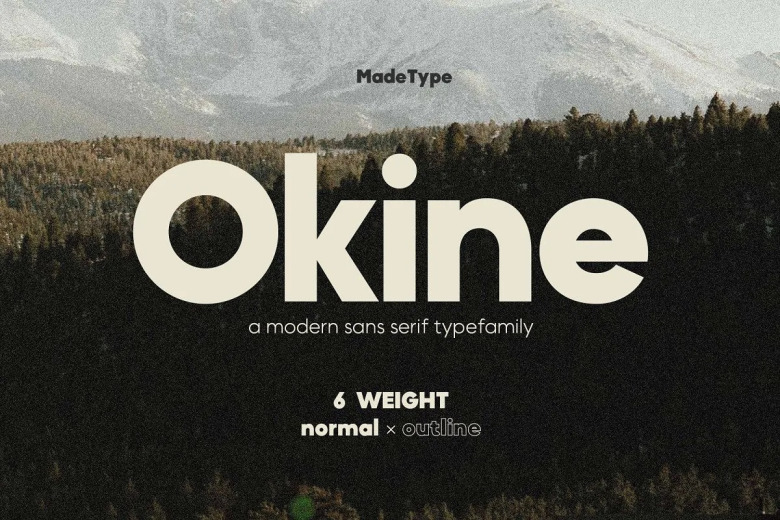
Okine Font
Okine Font is a roman, humanist, grotesk and geometri sans serif family. Inspired by text-focused magazine ads of the 80s and 90s. With both upper and lowercase, Nineties Headliner works beautifully for logos or as primary header text, especially at large scale.
Okine Sans Serif Font Family